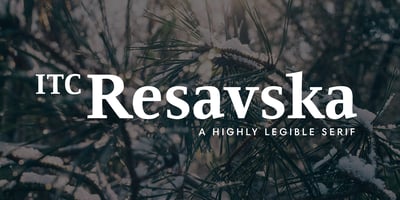
ITC Resavska
ITC Resavska font
ITC Resavska Font Family was designed by Olivera Stojadinovic and published by ITC. ITC Resavska contains 7 styles and family package options. Olivera Stojadinovic made her first sketches of the ITC Resavska family with the goal of creating a typeface that would be readable at small sizes. Stojadinovic added geometric serifs to the original design to create four weights in serif and sans serif sub-families. Each weight (except the black) has an italic counterpart.